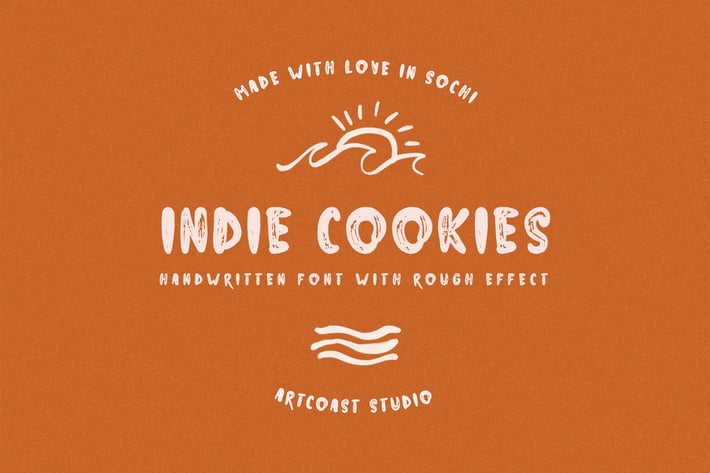
Indie Cookies Handwritten Font
Indie Cookies Handwritten Font - perfect for stellar quotes, handwritten notes, sweet greeting cards, and of course stand-out branding.